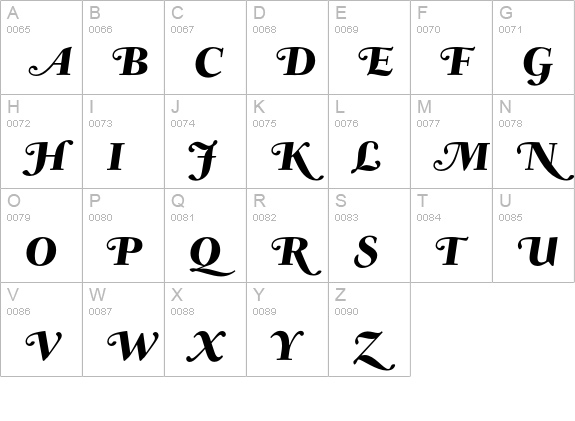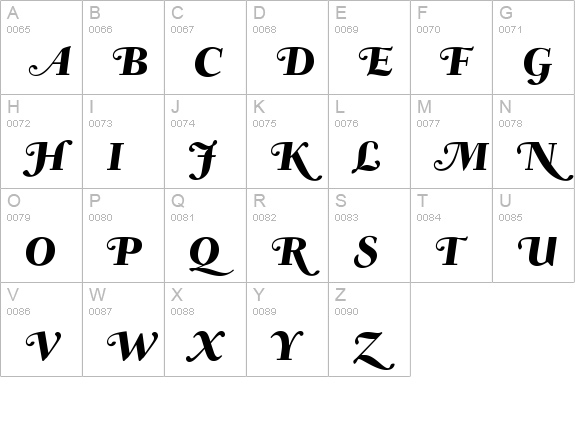
Fairfield LH 86 Swash Heavy Italic Old Style Figures is a heavy, high-impact, italic variant in the Fairfield typeface family \xE2\x80\x94 well suited to high-impact headlines, posters, and display advertising.
Fairfield LH 86 Swash Heavy Italic Old Style Figures font is a beautifully designed typeface that exudes elegance and sophistication. With its unique swashes and heavy italic style, this font is perfect for adding a touch of flair to any project. The old-style figures give it a classic and timeless look that is sure to make a statement. Best of all, Fairfield LH 86 Swash Heavy Italic Old Style Figures font is available for free download at FontsMarket.com. Whether you're working on a formal invitation, a branding project, or a creative design, this font is a versatile choice that will elevate your work to the next level. Download this stunning font today and let your creativity shine!